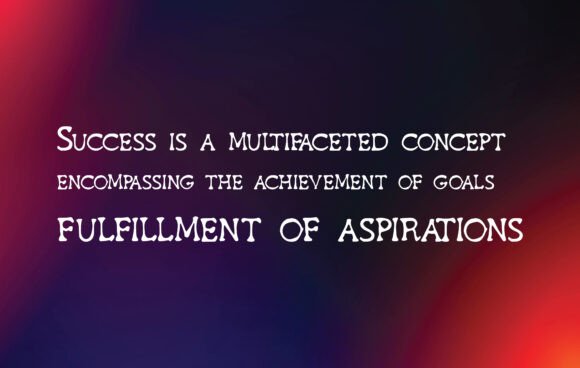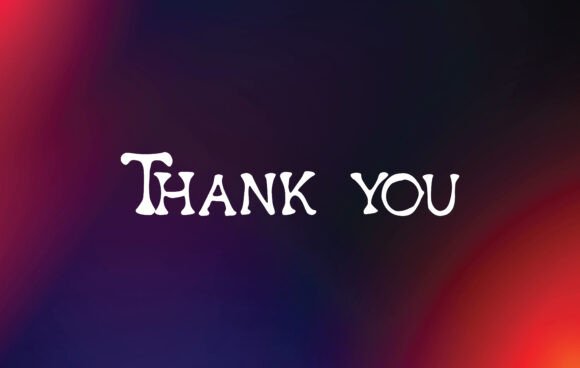
Introduction to Ozzy Font
Have you ever been working on a creative project, pouring your heart and soul into it, only to feel like something is missing? You’ve got the perfect idea, but the words just aren’t coming together like you envisioned. That’s where the magic of the Ozzy Font comes in.
As a designer, you know how crucial it is to have the right tools to bring your ideas to life. And that’s exactly what the Ozzy Font offers – a beautiful, handwritten font that can elevate your creative projects to new heights. With its free download option and transparent background, you can easily incorporate it into your designs without any hassle.
Whether you’re creating eye-catching logos, branding, or quotes, the Ozzy Font is a valuable resource that can take your designs to the next level. Its high-quality design makes it a must-have for any designer looking to add a personal touch to their work. So why settle for ordinary when you can have extraordinary with the Ozzy Font?
Ozzy Font
- Unique Grunge-inspired design for creative projects, offering a high-quality aesthetic.
- Transparent background, allowing for easy customization and versatility in design applications.
- High-resolution font, suitable for both print and digital media, with a minimum resolution of 300 DPI.
- Designed to evoke a sense of nostalgia and edginess, perfect for music-related projects, such as album artwork or merchandise.
Honest Review: Ozzy Font
I recently had the chance to work with Ozzy Font, a free download that’s been making waves in the design community. Overall, I was pretty impressed with what I saw.
- ✨ High-quality glyphs that are perfect for a creative project, especially one that requires a bold and edgy vibe.
- ✨ A transparent background that makes it easy to incorporate into any design, without worrying about distracting elements.
- ✨ Great for headings and titles, thanks to its striking and attention-grabbing style.
- ⚠️ Limited font weights, which may not be ideal for projects that require a wide range of styles.
- ⚠️ Not suitable for small text, as the bold strokes can make it difficult to read.
Overall, I’d say Ozzy Font is a solid design resource, especially for those looking for a high-quality font to add some flair to their creative project. While it may not be perfect, it’s definitely worth considering for your next design endeavor.
Ozzy Font
The Ozzy Font is a free download that can elevate any creative project with its unique style and high quality design. With a transparent background, it’s perfect for adding a touch of personality to your designs.
Tips for Getting the Most Out of Ozzy Font
To get the most out of the Ozzy Font, experiment with different font sizes, colors, and combinations to find the perfect look for your design. You can also use it in conjunction with other design elements to create a unique and eye-catching design.
The Ozzy Font is perfect for creating custom designs for social media, business cards, posters, and other creative projects. Its unique style and high quality design make it a valuable resource for designers and non-designers alike.